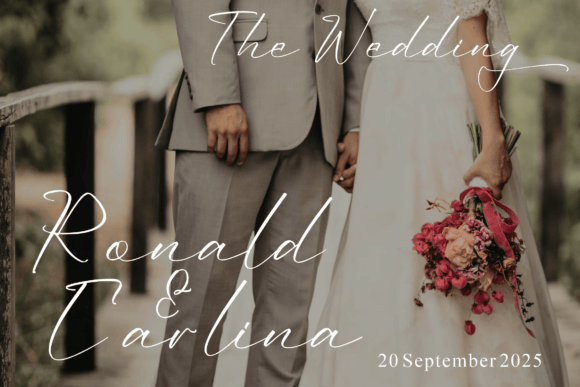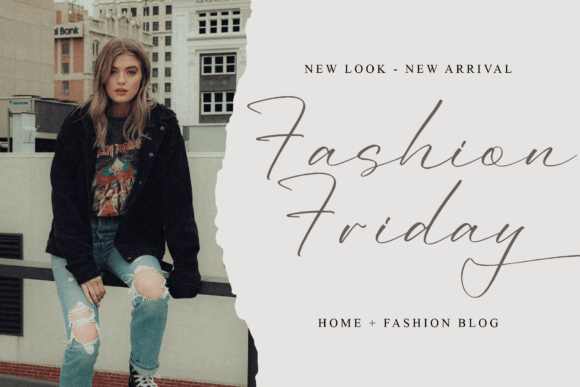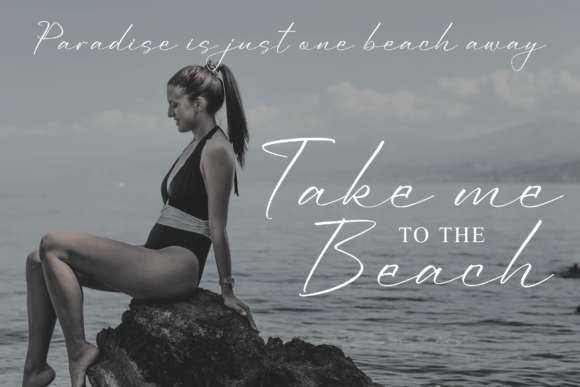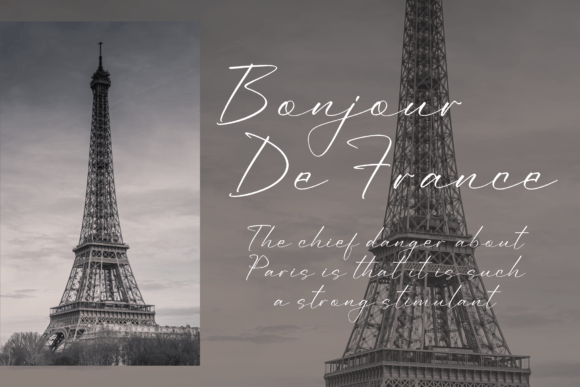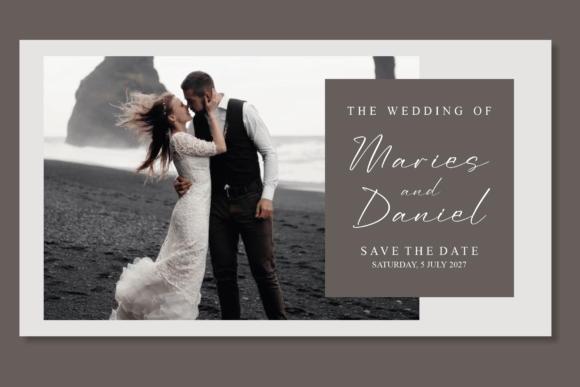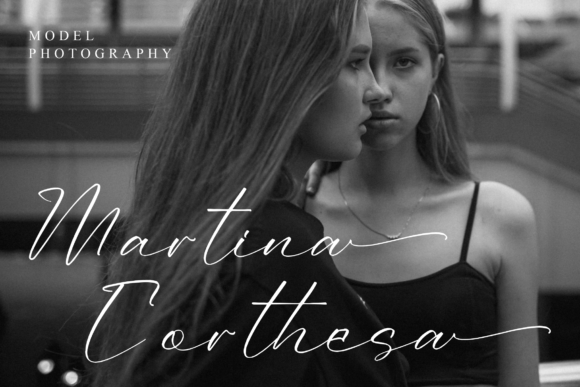
Introduction to Melanthia Sidnatan Font
Melanthia Sidnatan feels equally charming and elegant.
It looks stunning on wedding invitations, thank you cards, quotes, greeting cards, logos, business cards, and every other design which needs a handwritten touch .
Key Features of Melanthia Sidnatan Font
Why Choose Melanthia Sidnatan Font?